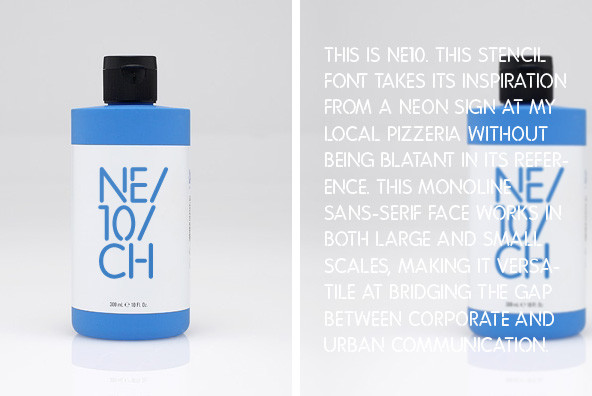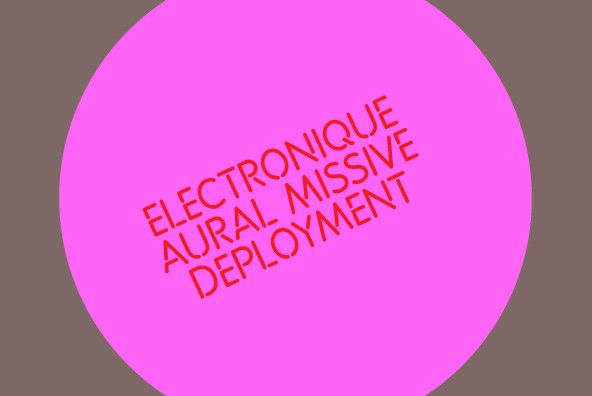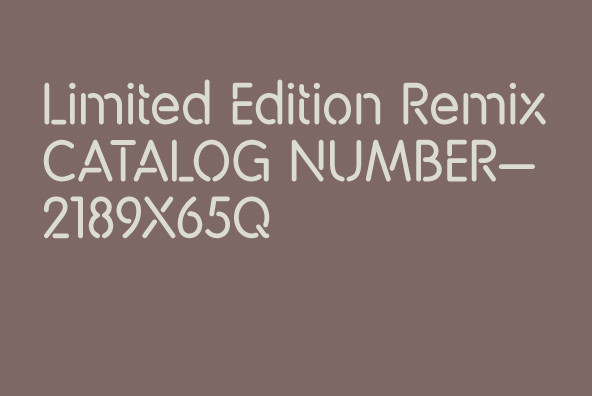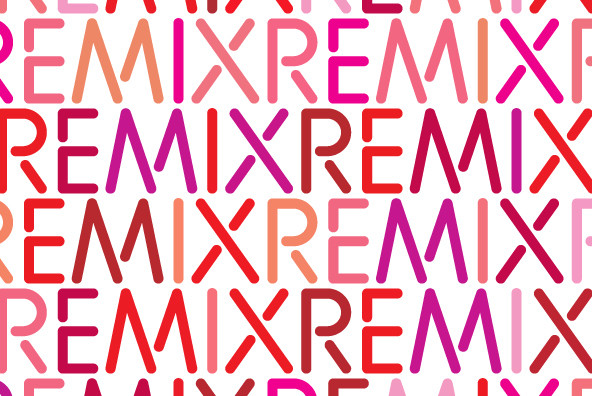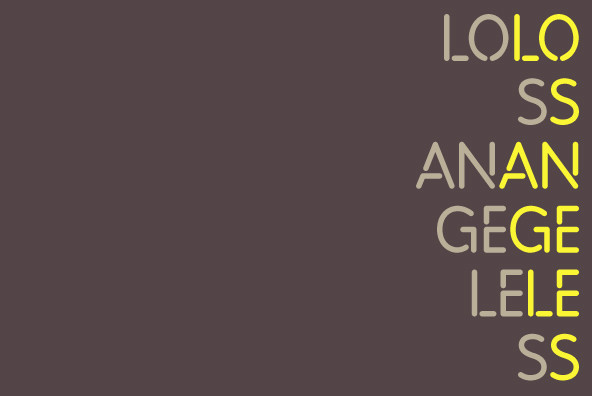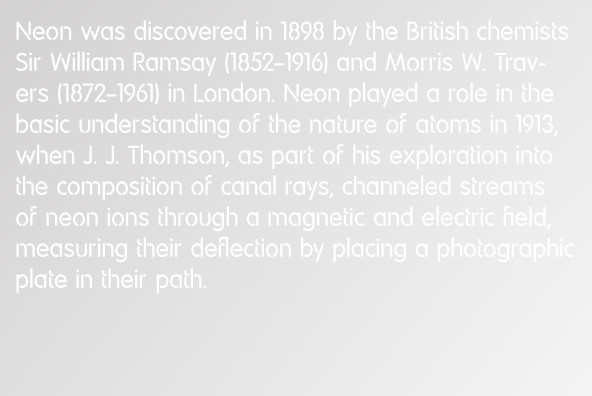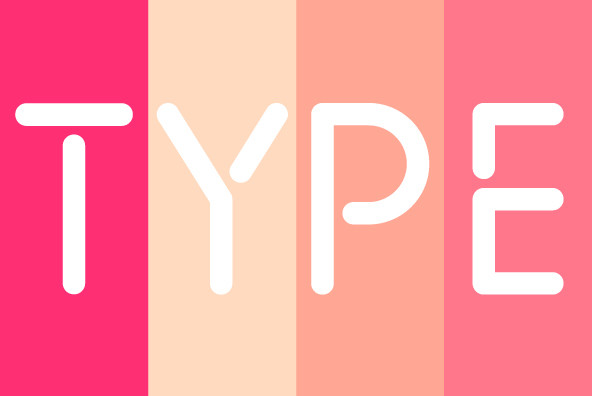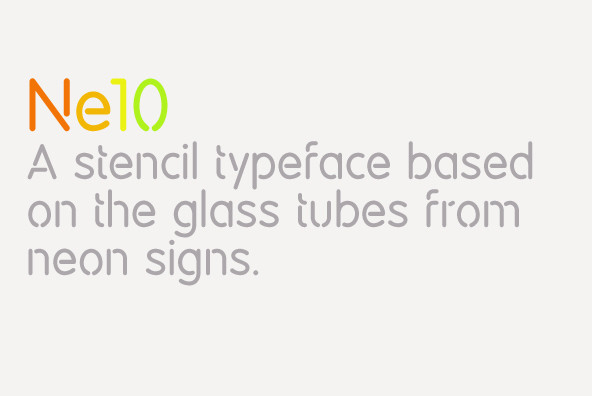
This stencil font takes its inspiration from a neon sign at my local pizzeria without being blatant in its reference. This monoline sans-serif face works in both large and small scales, making it versatile at bridging the gap between corporate and urban communication.